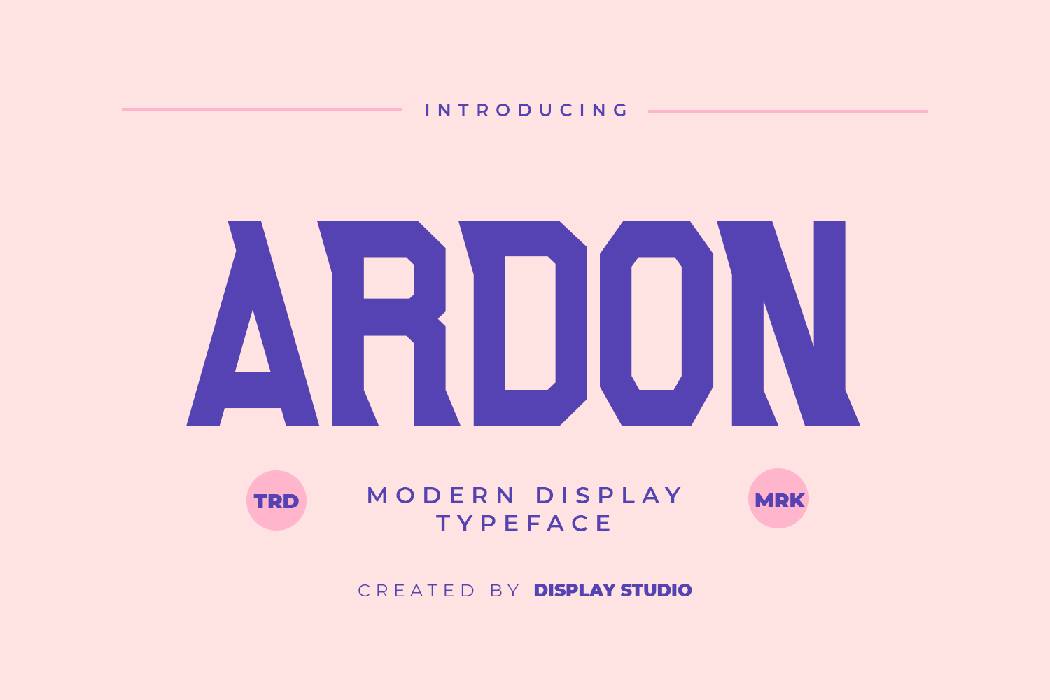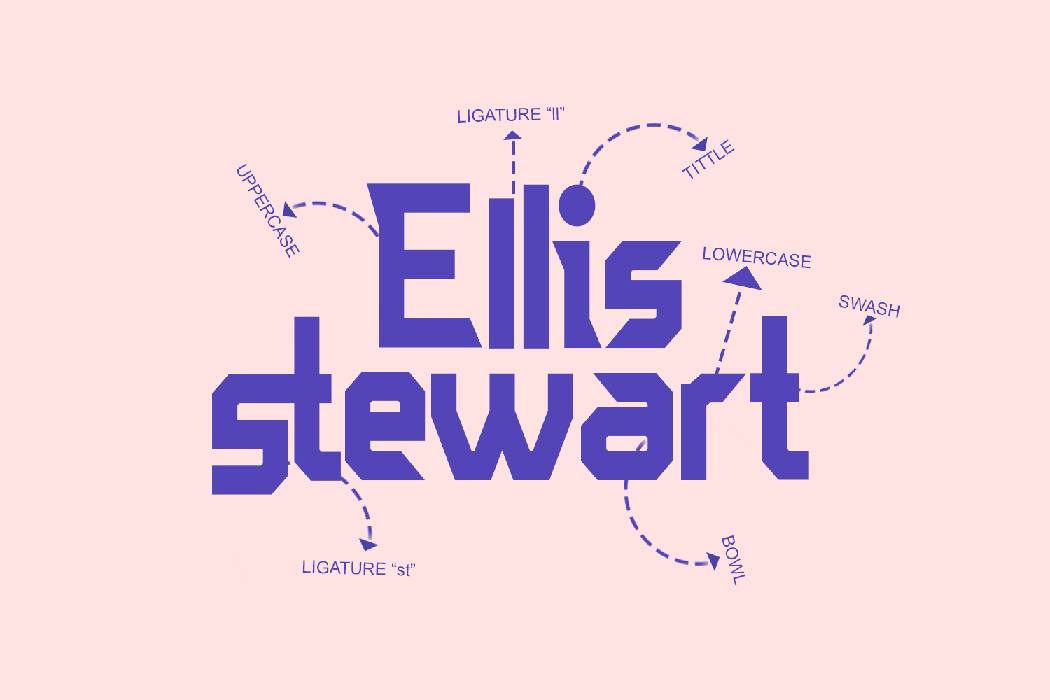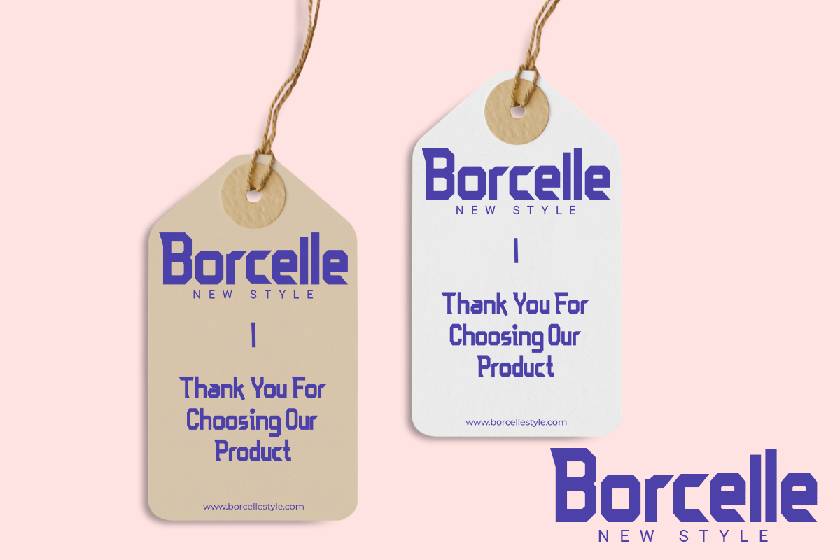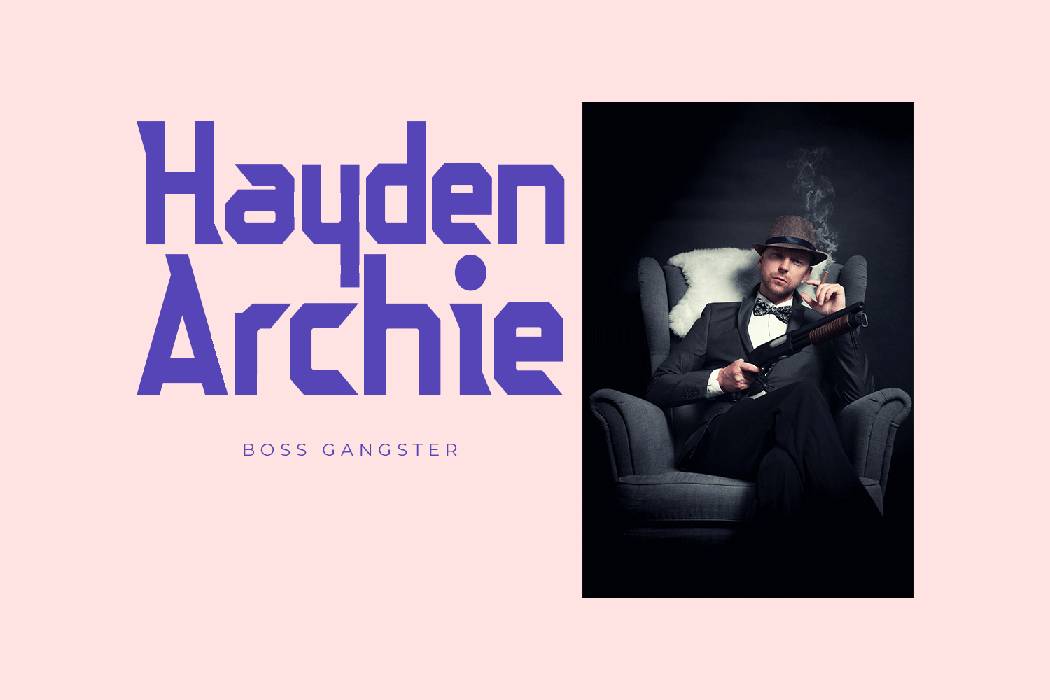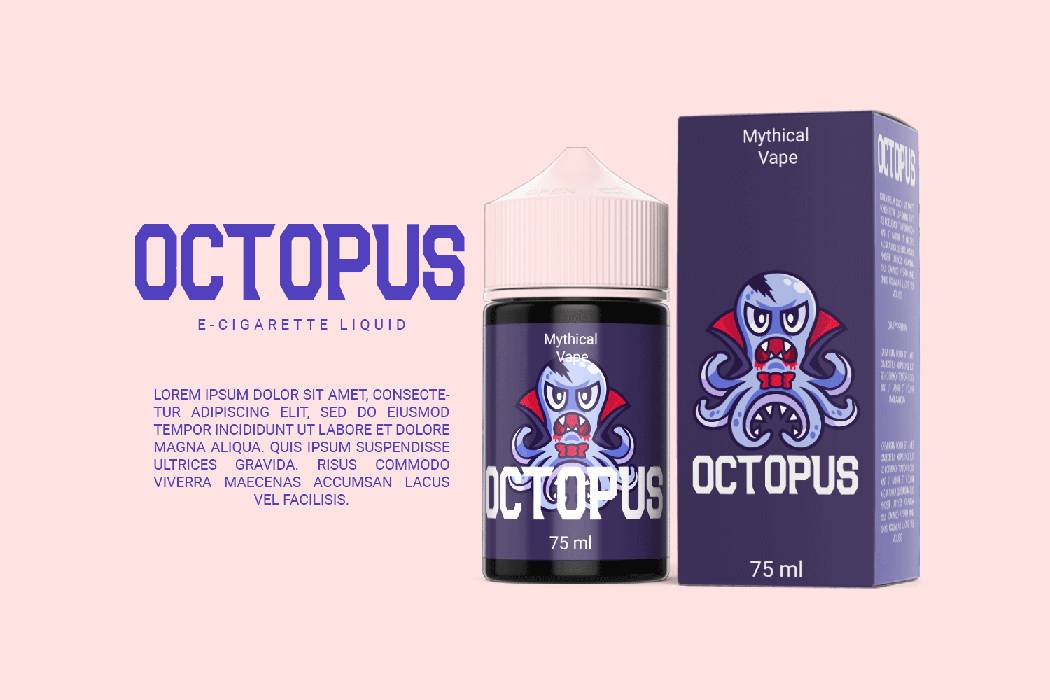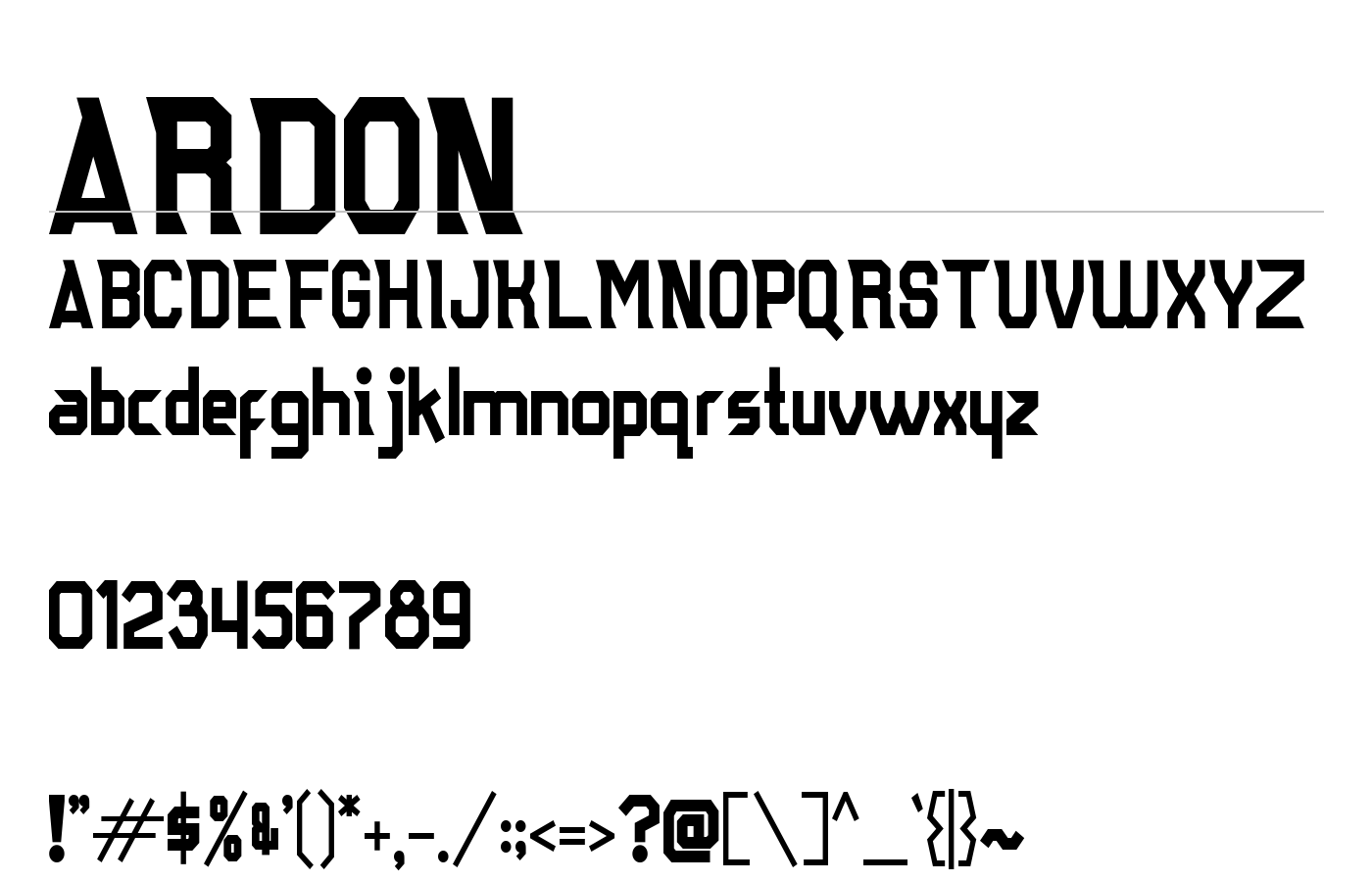
Ardon is a bold, condensed sans serif font with a strong geometric structure and sharp angles, giving it a modern and industrial feel. Its uppercase and lowercase letters feature a uniform weight and distinct angular cuts, making it ideal for impactful headlines, logos, and branding that require a confident, edgy look. This font works particularly well in designs aiming for a futuristic or tech-inspired vibe, where clarity and boldness are essential.
Ardon Font
About Ardon Font
| Font family | Ardon Font |